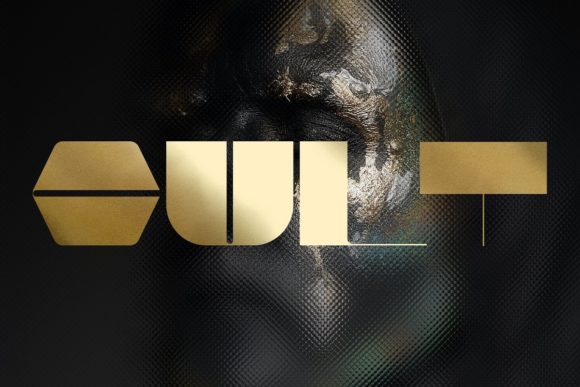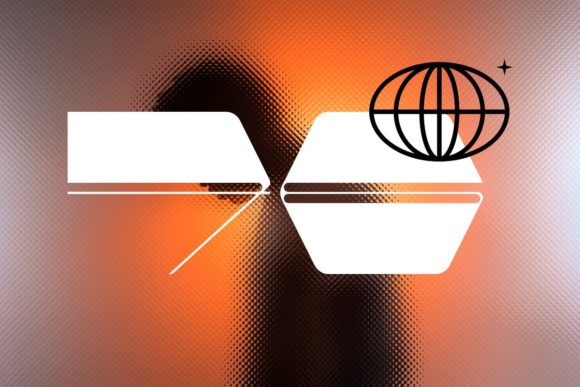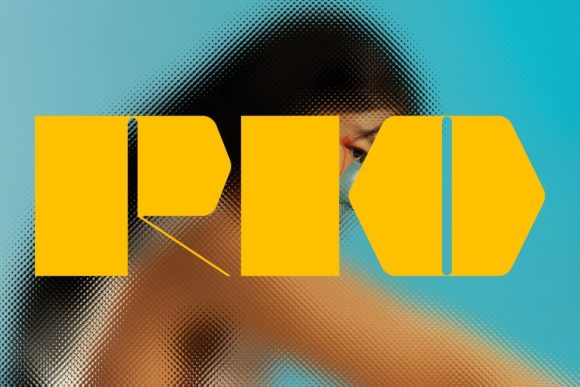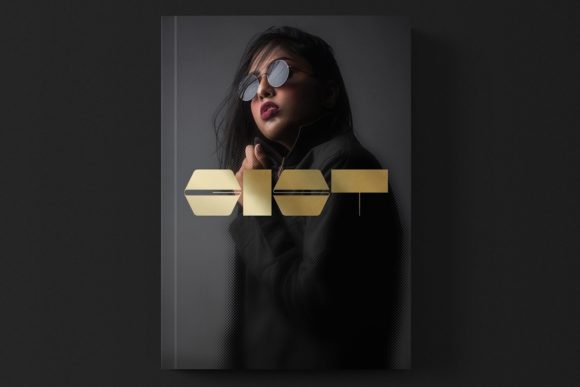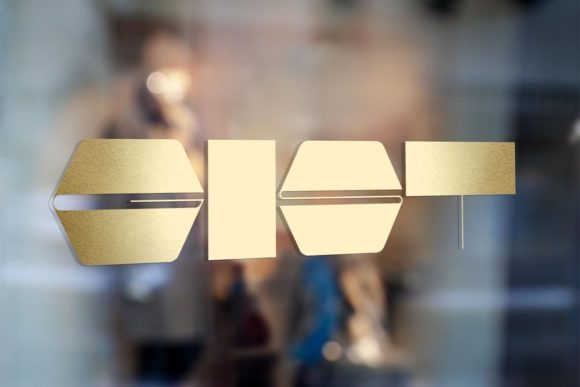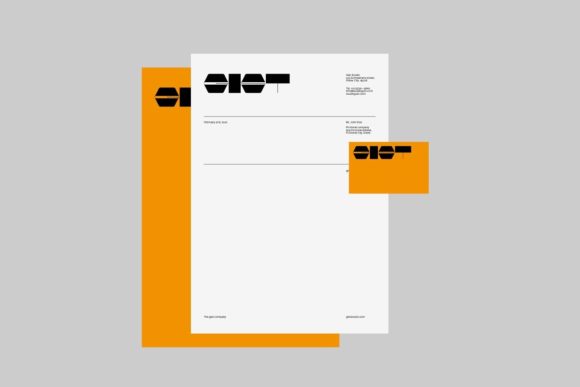
The Gist Font: A Modern Marvel for Creative Projects
I’ll never forget the struggle I faced while working on a branding project for a tech startup. The client wanted a font that was modern, futuristic, and attention-grabbing. I scoured the internet, tried countless fonts, but nothing seemed to fit the bill. That’s when I stumbled upon the Gist Font. It was love at first sight! ✨ In this article, I’ll share my experience with Gist, its features, and how to make the most of it in your creative projects.
An Honest Review of Gist Font
What I Love About Gist Font
- 💥 **Modern and Futuristic**: Gist Font is specifically designed for display use, making it perfect for titles, logotypes, monograms, and short text.
- ✅ **Highly Versatile**: Its sleek and clean design makes it suitable for a wide range of creative projects, from branding and advertising to packaging and web design.
- 🎨 **Excellent for Logos and Icons**: Gist Font’s geometric shape and bold lines make it an excellent choice for creating logos, icons, and other graphical elements.
While Gist Font is an excellent choice for display use, it may not be the best option for body text or long paragraphs. ⚠️ Its bold and geometric design can be overwhelming for extended reading. Additionally, some users may find the font’s futuristic feel too avant-garde for certain projects. 🤔
The Backstory of Gist Font
Gist Font was designed with the goal of creating a modern and futuristic display font that would meet the needs of creative professionals. The designer aimed to create a font that was both sleek and geometric, with a focus on clean lines and bold shapes. The result is a font that is both versatile and attention-grabbing. 💡
Q: What is Gist Font best used for?
A: Gist Font is best used for display purposes, such as titles, logotypes, monograms, and short text.
Q: Is Gist Font suitable for body text?
A: While Gist Font can be used for body text, it may not be the best option due to its bold and geometric design. It’s better suited for short text and display use.